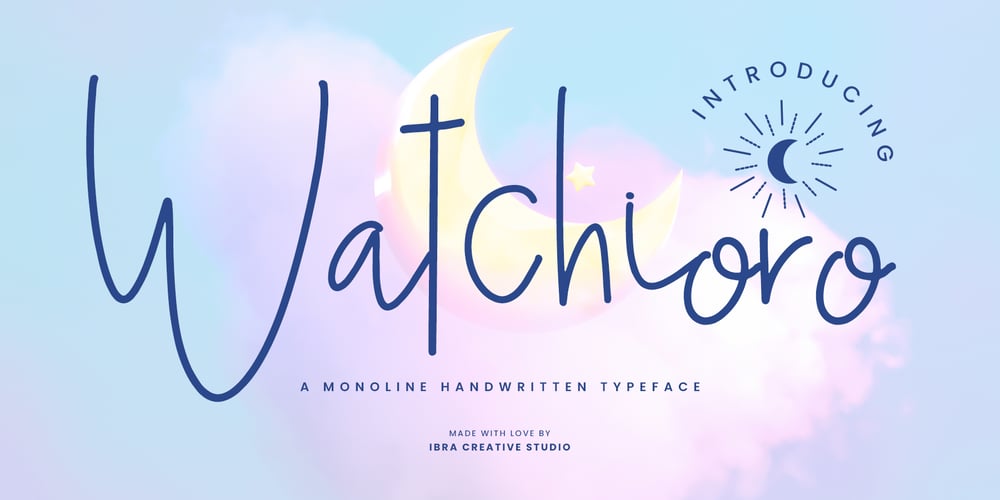
Watchioro Font Family was designed by Roisatul Azizah and published by IbraCreative. Watchioro contains 1 styles and family package options. Watchioro – A Monoline Handwritten TypefaceWatchioro, a monoline handwritten typeface, exudes a charming and effortless quality in its design. The seamless flow of its lines creates a consistent and graceful appearance, capturing the essence of handwritten elegance. With a single, unbroken weight throughout, Watchioro maintains a balanced and harmonious aesthetic, making it ideal for projects that require a personal touch with a modern twist. The simplicity of this monoline script ensures legibility while preserving a distinctive handcrafted feel, allowing it to add a warm and approachable character to a variety of creative endeavors, from invitations to branding. Watchioro stands out as a testament to the beauty of monolinearity in typography, offering a delightful and versatile choice for those seeking a handwritten typeface with a timeless appeal.Watchioro is perfect for branding projects, logo, wedding designs, social media posts, advertisements, product packaging, product designs, label, photography, watermark, invitation, stationery, game, fashion and any projects.Fonts include multilingual support for; Afrikaans, Albanian, Czech, Danish, Dutch, English, Estonian, Finnish, French, German, Hungarian, Italian, Latvian, Lithuanian, Norwegian, Polish, Portuguese, Slovak, Slovenian, Spanish, Swedish.